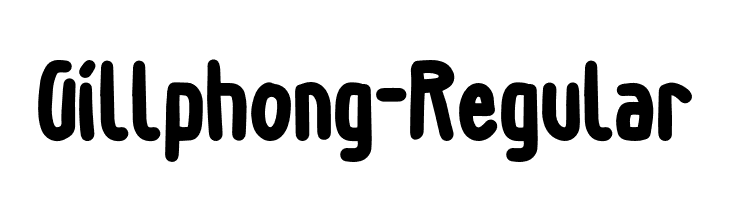
A playful, whimsical font blending script and sans-serif styles.
A playful handwritten font with smooth curves and a friendly appearance.
A bold, playful handwritten font with expressive strokes.
A bold, playful font with rounded edges and a cohesive design.